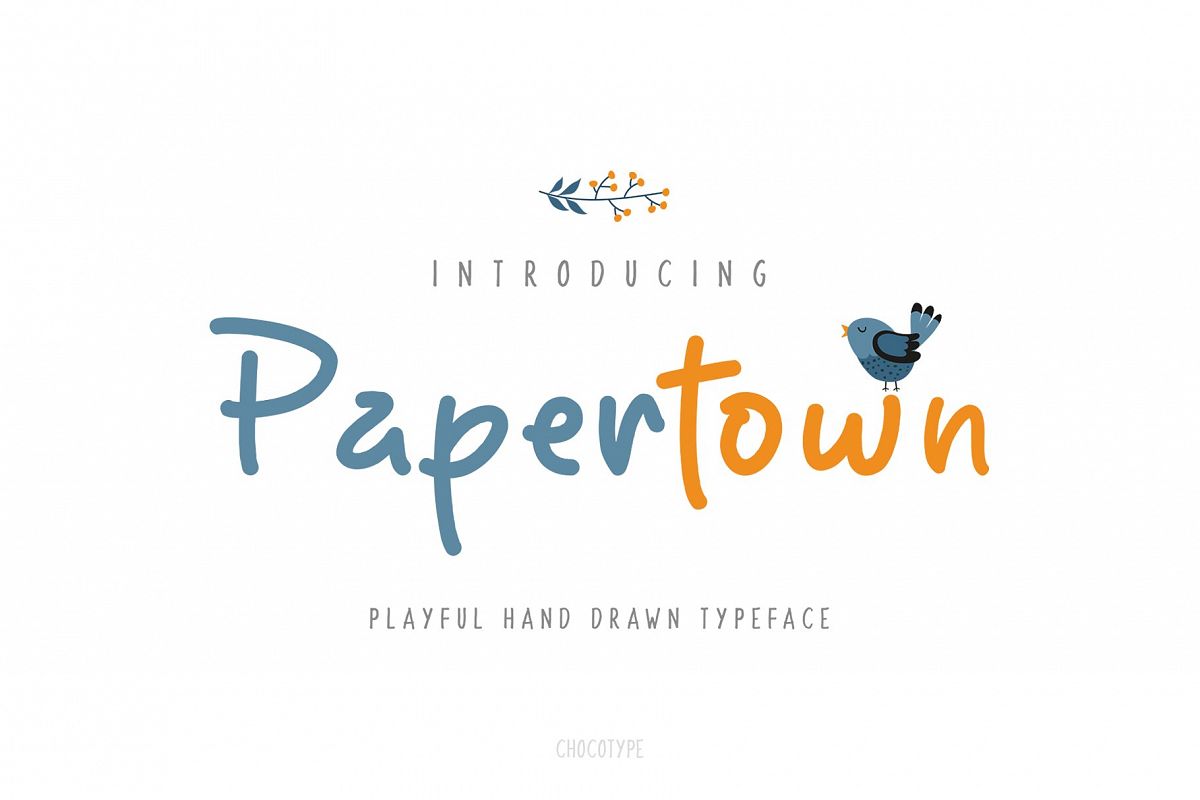
Papertown
Introducing Papertown Font!
A Perfectly Playful new font with a cute character set!Perfect for DIY projects, greeting cards, labels, quotes, posters, wall art, branding, packaging, websites, photo & photography overlays, signs, window art, scrapbooking, tags and so much more!